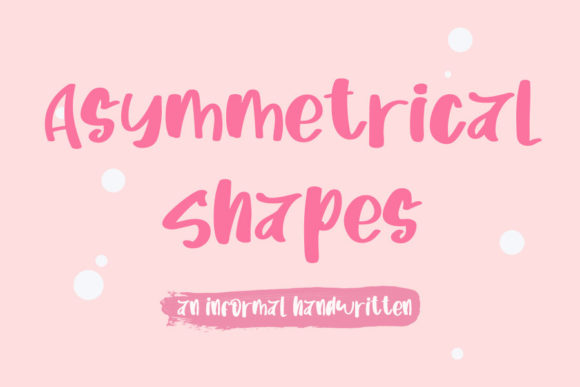
Asymetrical Shapes: A Handwritten Font for Makers
I was sitting at my workbench late one Tuesday evening, surrounded by stacks of kraft paper tags and a half-empty cup of tea. I had just finished pouring a new batch of lavender and vanilla soy candles, and now came the part I usually dread but secretly love: the labeling. I wanted something that felt personal, imperfect, and warm—something that whispered "handmade" rather than shouted "mass-produced." I scrolled through my library of Fonts, bypassing the rigid serifs and the overly polished scripts, until I landed on Asymetrical Shapes. The moment I typed out "Lavender Dream," I knew I had found the perfect match. This casual and informal Script Handwritten typeface didn’t just sit on the screen; it breathed life into the design.
The Charm of Imperfection in Product Design
What makes Asymetrical Shapes so compelling for us as crafters and small business owners is its inherent authenticity. In a world where digital precision is the norm, there is a growing hunger for the human touch. This font captures that essence beautifully. Its natural and unique style mimics the flow of a real pen moving across paper, complete with subtle variations in stroke weight and alignment. It is not trying to be perfect, and that is exactly why it works so well for brand identity.
When you use a handwritten font like this on your products, you are signaling to your customers that a real person made this item. Whether you are designing wedding invitations, creating printable wall art, or labeling homemade jams, the mood of the typography sets the stage. Asymetrical Shapes brings a sense of whimsy and approachability. It feels friendly, inviting, and effortlessly cool. For makers who want their brand identity to feel accessible and artistic, this typeface is an invaluable tool in your creative arsenal.
From Candle Labels to Boutique Packaging
Let’s talk about practical applications. I started using Asymetrical Shapes for my candle labels, but it quickly became my go-to for almost every project requiring a personal touch. Because it is a display font at heart, it shines brightest when used for short phrases, product names, and titles. It is not designed for long paragraphs of body text, but it is exceptional for making a statement.
Consider boutique packaging. If you are selling handmade soaps, knitwear, or jewelry, the unboxing experience is crucial. Printing a simple "Thank You" or "Handmade with Love" on a sticker using this font adds an layer of emotional appeal. The irregular baseline and organic curves of the letters create a visual rhythm that draws the eye. I have also used it for seasonal product tags, such as holiday gift labels. The font’s playful nature fits perfectly with the festive, cozy vibe of winter crafts, yet it remains versatile enough for spring floral designs or summer beach-themed items.
For those of us who create digital downloads, such as planner pages or printable greeting cards, Asymetrical Shapes offers a premium look without the stiffness of traditional modern typography. It allows you to create templates that feel custom-designed for each user. Imagine a birthday card template where the recipient's name is written in this lively script, surrounded by simple watercolor elements. The combination creates a harmonious balance between structure and creativity.
Readability and Cutting Machine Tips
One common concern when working with Script Handwritten styles is readability, especially when using cutting machines like Cricut or Silhouette. Asymetrical Shapes is generally quite legible, but like all decorative fonts, it requires thoughtful application. When designing for small stickers or product labels, ensure that the text size is large enough to maintain the integrity of the letterforms. If the letters are too small, the unique asymmetrical details might blur together, reducing clarity.
For vinyl cutting, always preview your design at actual size. This font works best for words that are not overly complex. Short words like "Love," "Joy," "Home," or brand names tend to look fantastic. If you are creating a larger sign, such as a farmhouse-style welcome board, you can experiment with larger sizes to let the flourishes and natural imperfections stand out. Always test cut a small section first to ensure your machine handles the curves smoothly. Adjusting the cut settings slightly can help prevent tearing in the delicate parts of the script.
Pairing for Visual Harmony
To get the most out of Asymetrical Shapes, consider how it interacts with other typefaces. Font pairing is an art form, and this particular creative font pairs beautifully with clean, simple counterparts. A lightweight sans serif font works wonders for secondary information, such as ingredients lists on candle labels or dates on wedding invitations. The contrast between the organic, flowing lines of the script and the geometric stability of the sans serif creates a professional and balanced layout.
You might also try pairing it with a classic serif font for a more traditional or elegant look. This combination is particularly effective for wedding stationery or high-end boutique branding. The serif adds a touch of sophistication, while Asymetrical Shapes keeps the design from feeling too stiff or formal. Avoid pairing it with another busy script or a highly decorative display font, as this can create visual clutter and confuse the viewer. Let this font be the star of the show.